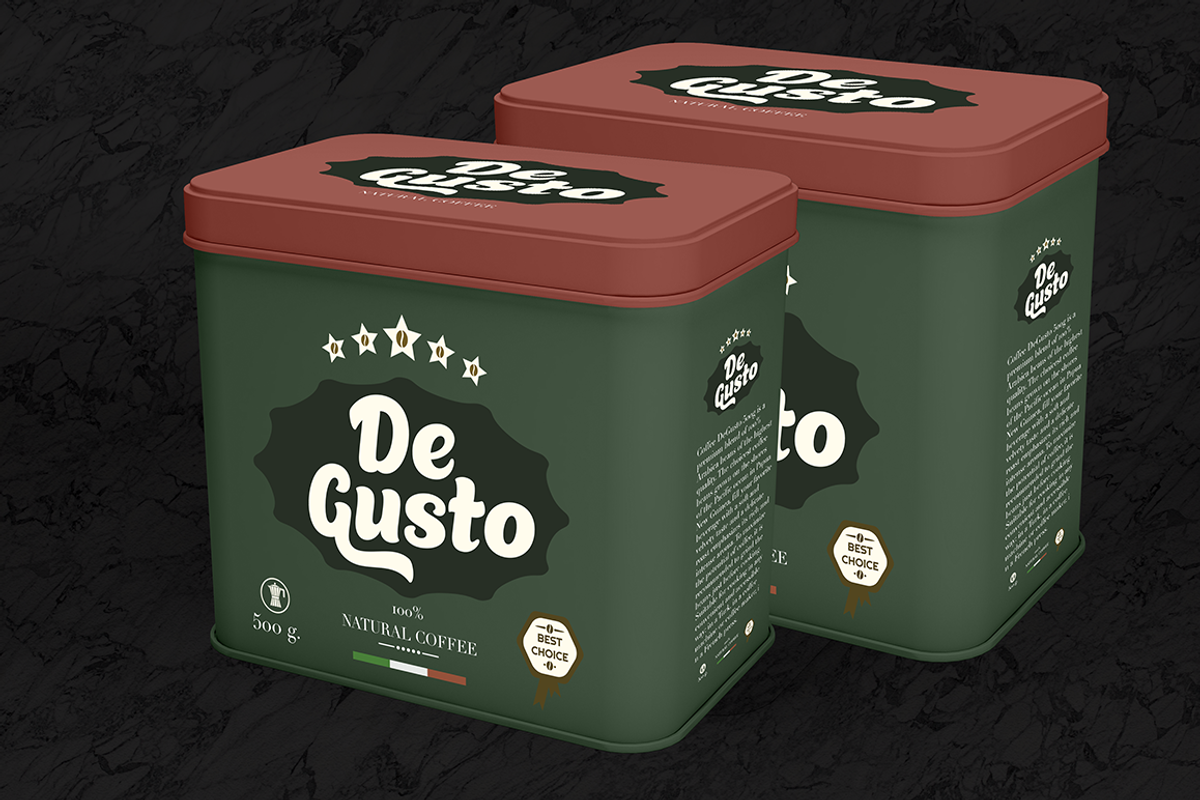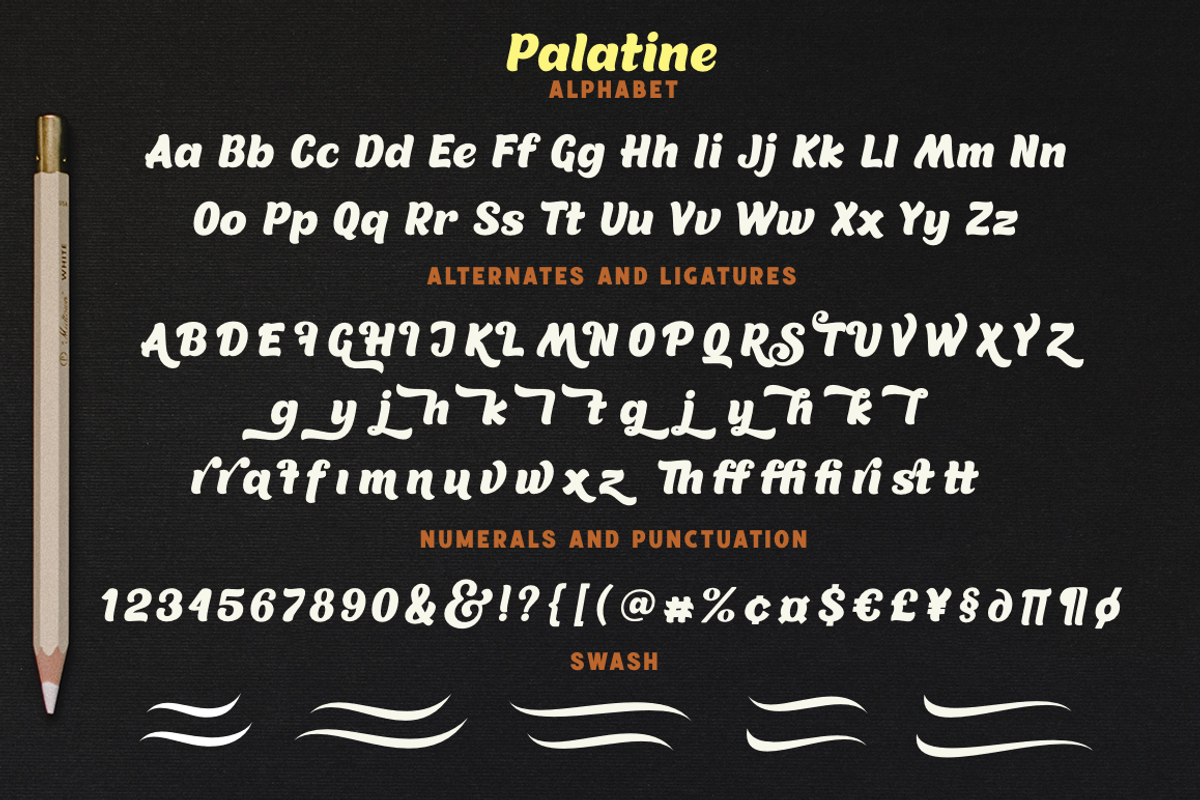
Palatine
Palatine - this bold display font is a stylish and original multipurpose font in a modern style with many alternatives and ligatures that are very attractive, with their help you can make your project unique. and also use the main set to highlight exactly what you need. All characters in this font are PUA-encoded and can be accessed from Glyph panel.
Following international symbols support: ÀÁÂÃÄÅĄÇĆÈÉÊËĘÌÍÎÏÐÑŃŁÒÓÔÕÖØÙÚÛÜŚŠŸÝŹŻŽßàáâãäåçèéêëìíîïðñòóôõöøùúûüýÿąćęłńśšźżž
-Alternates
-Ligatures
-Swash
-Multilingual support